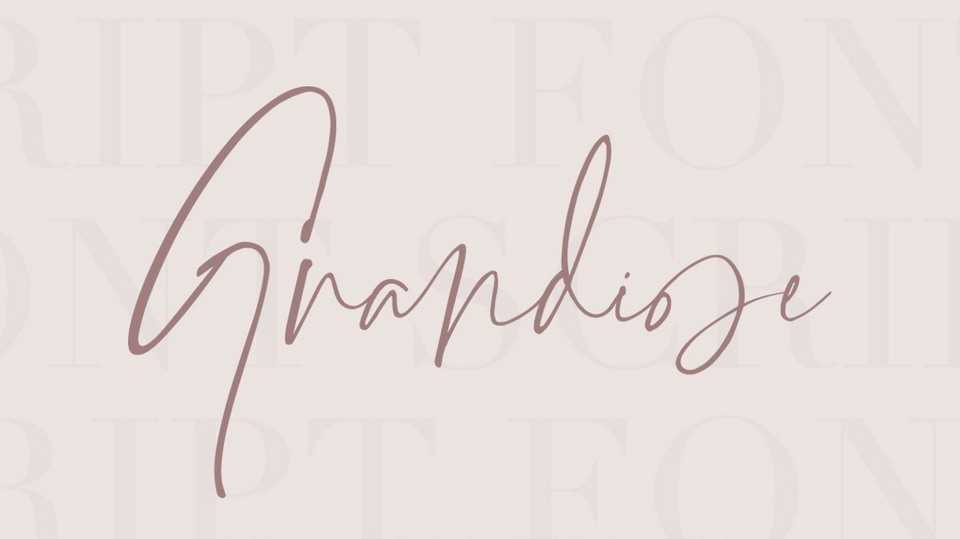
Grandiose Font › Fontesk – Download Grátis
Download Grandiose font, a classy handwritten script, that combines stylish letter shapes with contemporary twist. It’s the perfect fit for all luxury projects, such as elegant logos, printed quotes, lovely wedding invitation cards, social media headers, product packaging and a lot more!